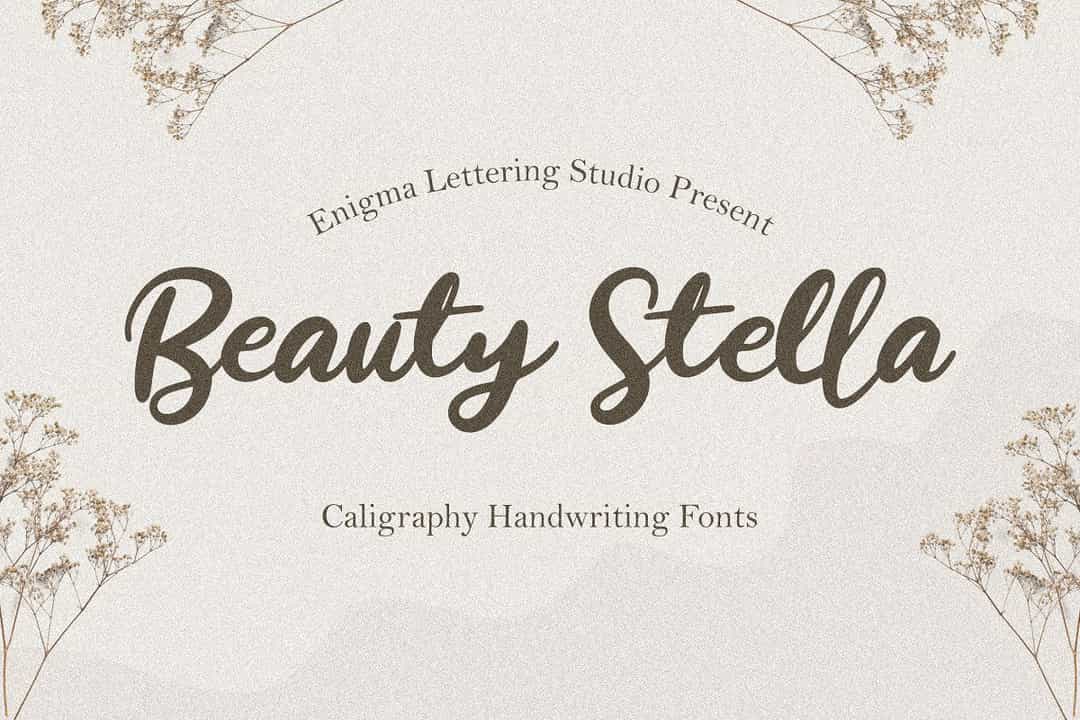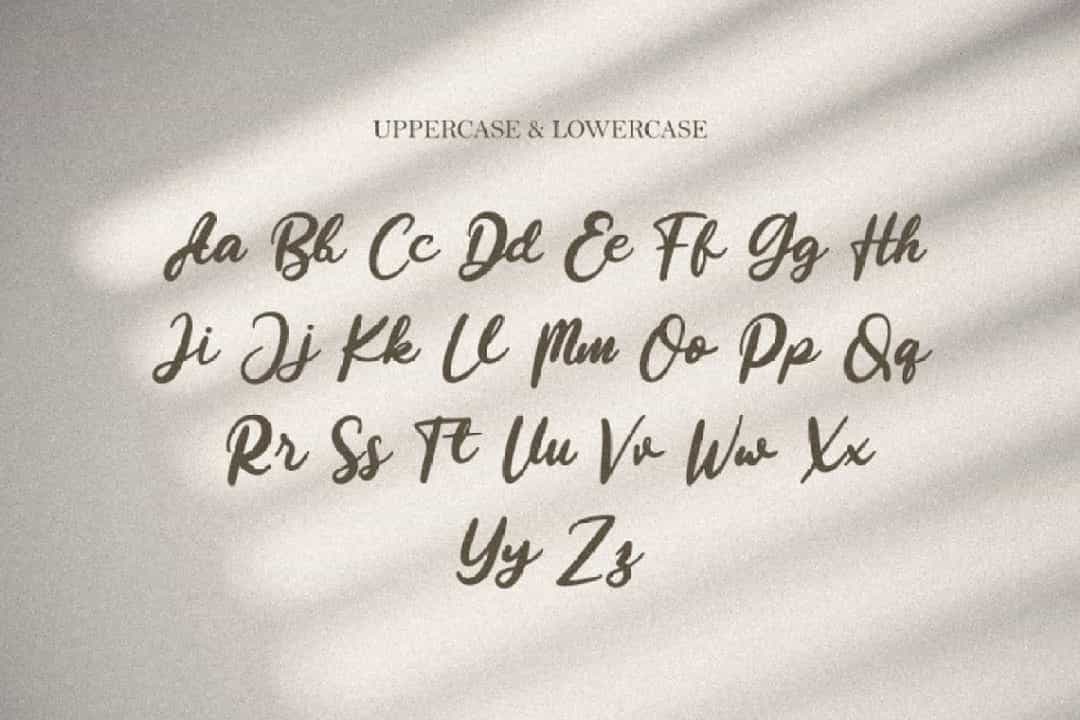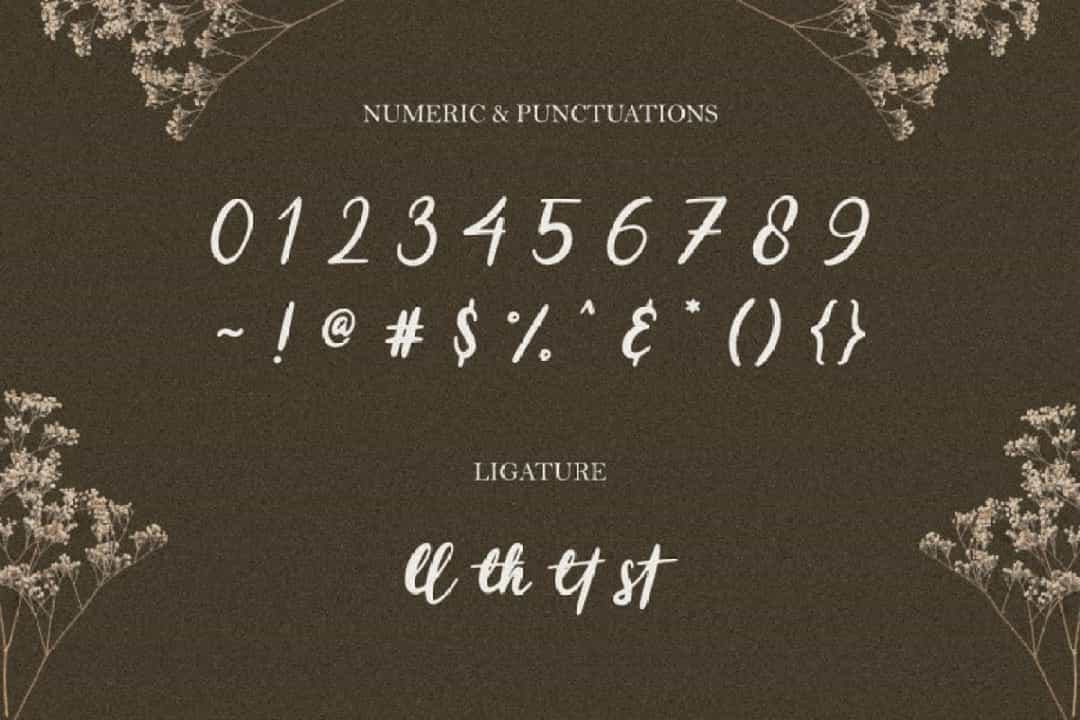
Beauty Stella is an exquisite handwritten script typeface designed to exude elegance and sophistication. Perfect for designers seeking an elegant yet stylish finish to their designs, Beauty Stella makes a beautiful addition to your designs.